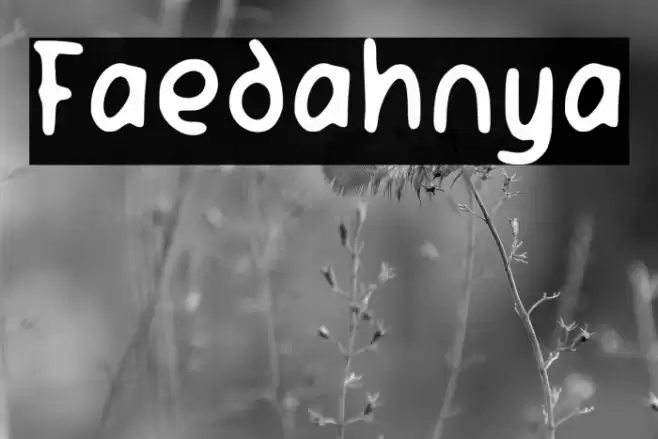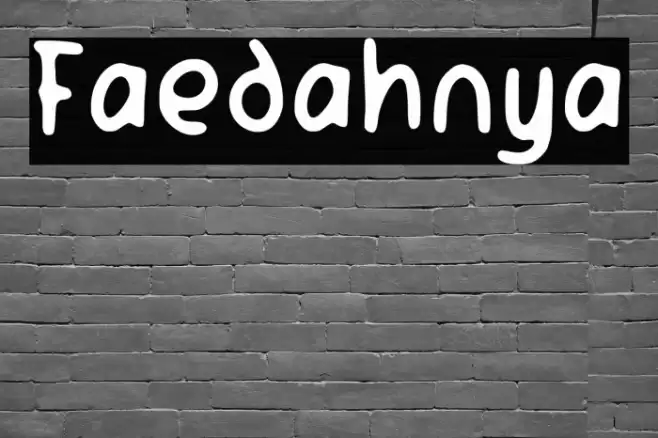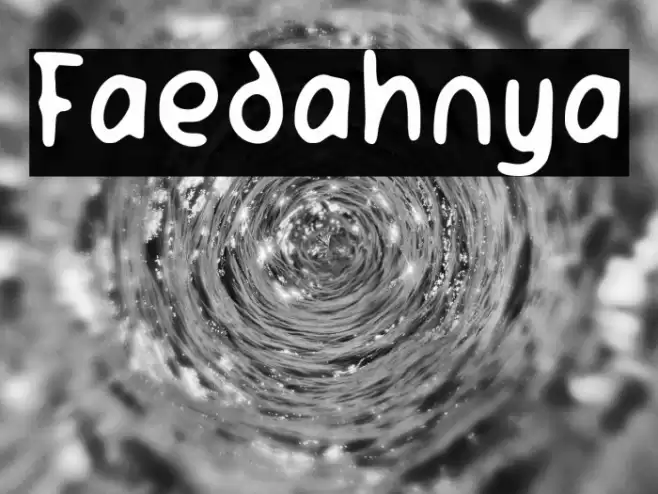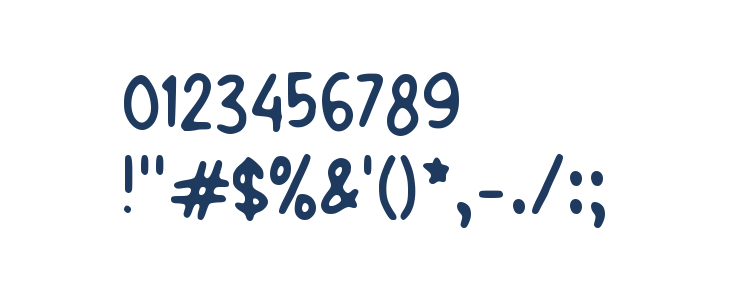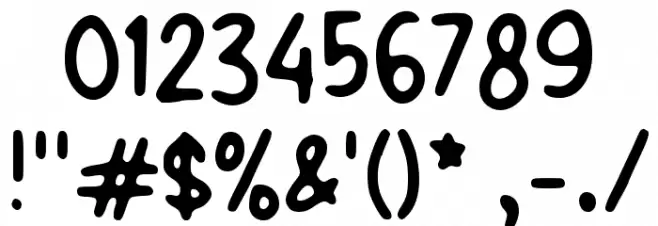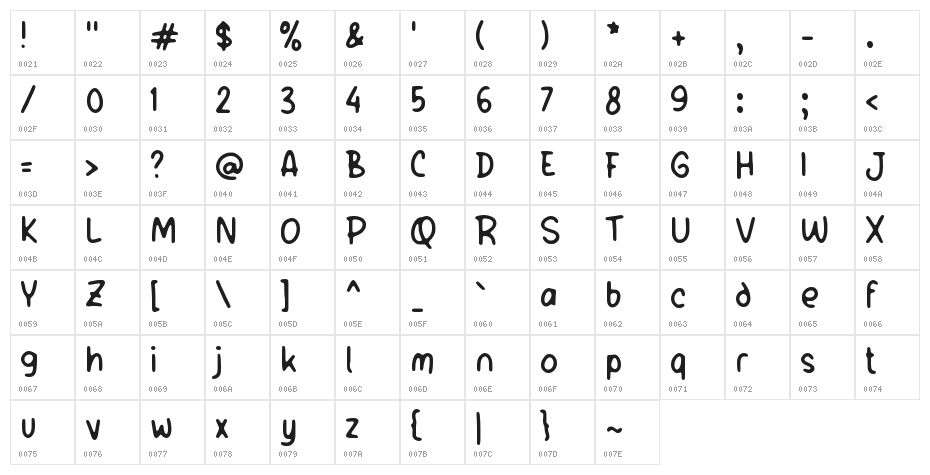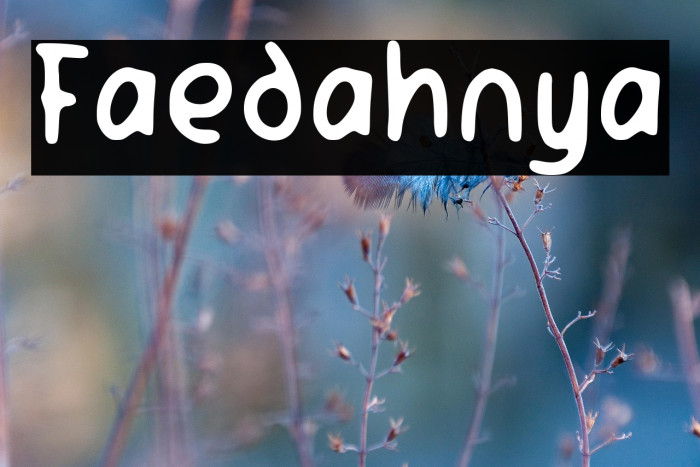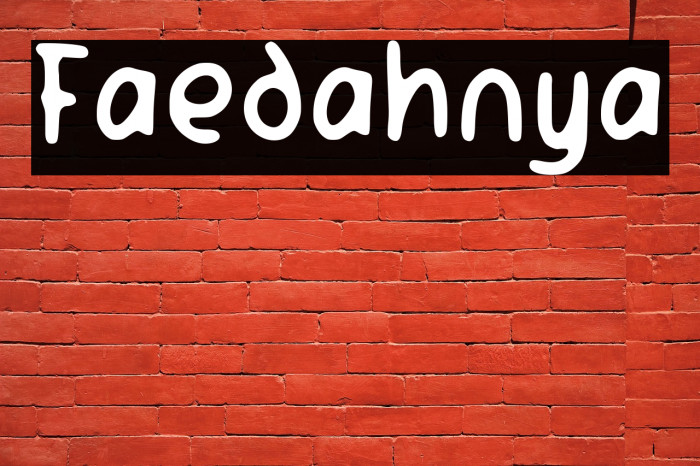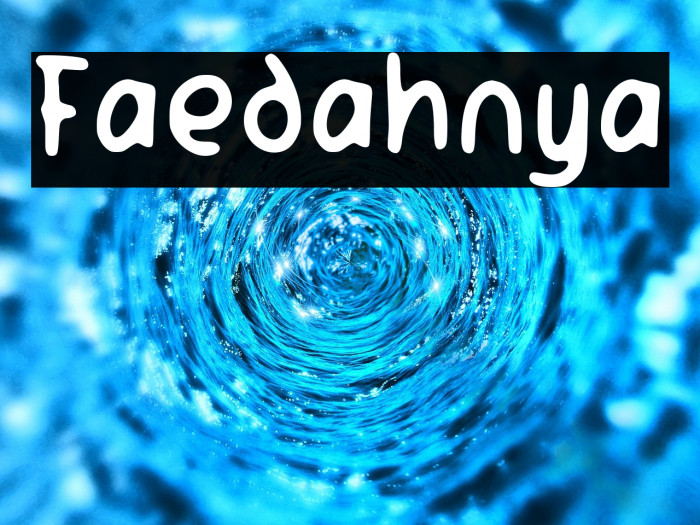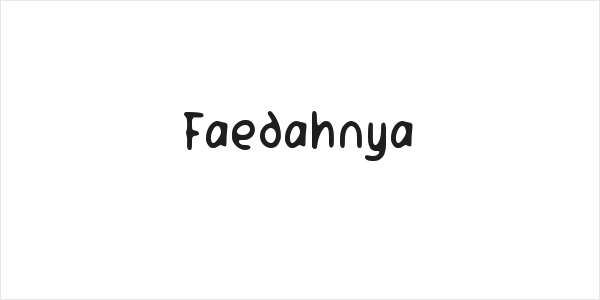
Faedahnya Font
Faedahnya Description
This playful and whimsical font features rounded, bold characters with a hand-drawn appearance. The letters exhibit a consistent stroke width, creating a uniform and approachable look. The uppercase and lowercase letters maintain a friendly and informal style, making it suitable for casual and creative projects. The numbers and special characters follow the same design ethos, ensuring coherence across all text elements. The font's organic curves and slightly irregular shapes give it a unique personality, ideal for projects that require a touch of fun and creativity.
A playful, hand-drawn font with rounded, bold characters from Uncategorized fonts.
- Proposed Projects: Ideal for children's books, playful branding, greeting cards, and creative posters.
- Overall Style: Playful